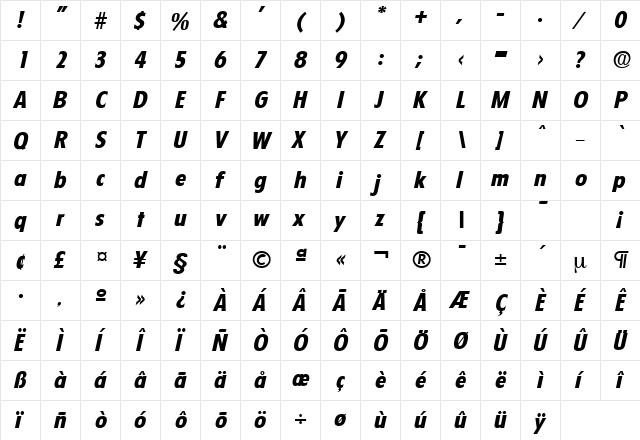
Florida-Serial-ExtraBold RegularItalic Font Preview
Design Context for Florida-Serial-ExtraBold Typeface
Florida-Serial-ExtraBold offers clean, dependable letterforms without strong stylistic allegiance, making it a practical choice for designers who need flexibility. Its italic angle brings a sense of urgency and motion to the letterforms. Its bold stroke weight gives it real presence on the page.
Pro Tip: Try Florida-Serial-ExtraBold for annotation and caption copy alongside an upright companion — the contrast in angle creates a dynamic but ordered typographic system.